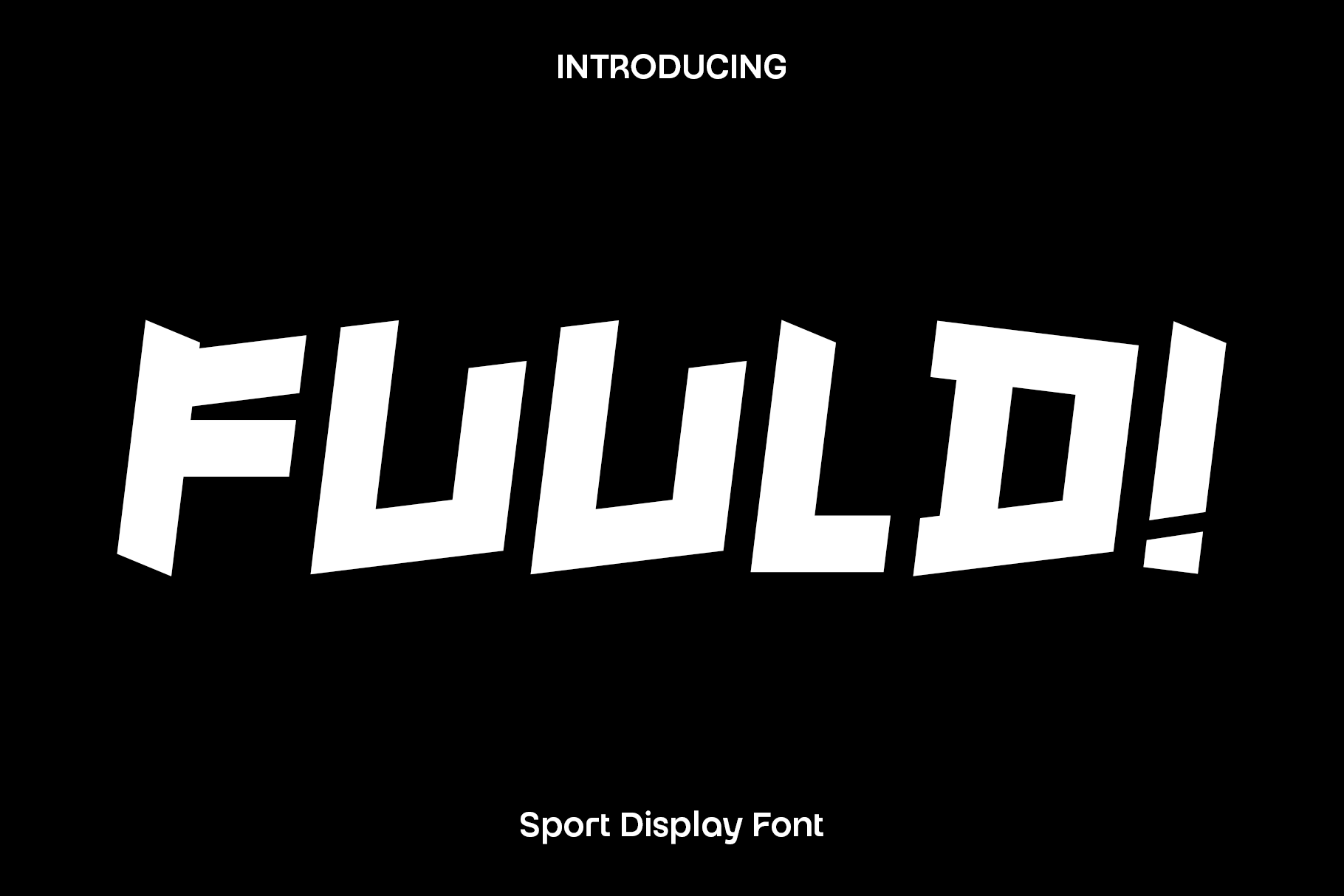
Fuuld - Sports Display Font
Fuuld is a bold and energetic sports display font designed to capture speed, strength, and competitive spirit. Featuring wide italic letterforms, modern cutout details, and a powerful forward slant, Fuuld creates a dynamic visual impact that instantly commands attention. Inspired by professional sports branding, racing aesthetics, and modern athletic typography, this font delivers a strong and confident presence in every design.
Perfect for sports titles, football match graphics, esports branding, gaming projects, team logos, monograms, apparel designs, posters, and promotional materials, Fuuld is built to make headlines stand out. Its wide structure and carefully crafted proportions provide excellent readability while maintaining an aggressive and action driven appearance. Every character is designed to create a sense of movement and momentum, helping your designs feel fast, powerful, and exciting.
Fuuld was created for designers who need typography that performs under pressure. Whether you are designing tournament banners, sports merchandise, social media campaigns, or modern brand identities, this font delivers a professional and energetic look that leaves a lasting impression.
The combination of bold styling, dynamic angles, and modern cutout elements makes Fuuld an excellent choice for projects that require strength, performance, and visual impact. It transforms ordinary text into a powerful statement that captures the excitement of competition and achievement.
Fuuld Font Features:
• Wide italic display letterforms
• Modern cutout design details
• Strong and dynamic visual style
• Uppercase and lowercase characters
• Numerals and punctuation
• Excellent readability for headlines and branding
• Perfect for sports, football, gaming, esports, and apparel
• Suitable for print and digital projects